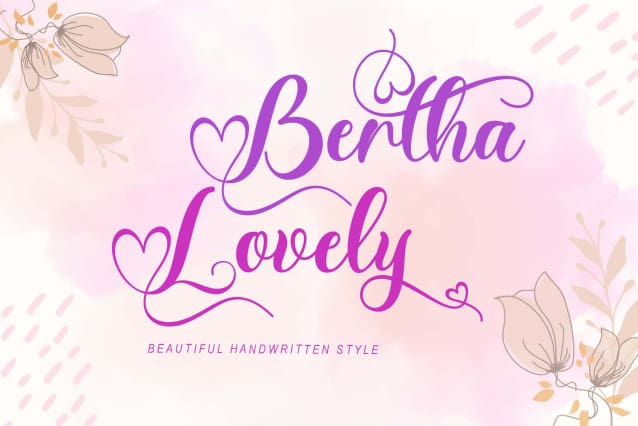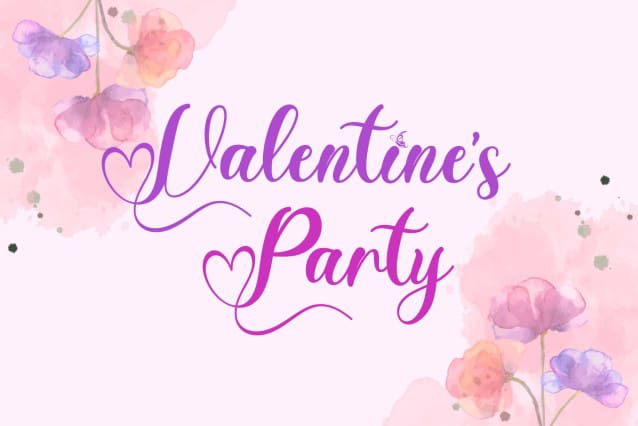
Bertha Lovely Font
Bertha Lovely Font is a beautiful handwritten font with love decoration. This font is equipped with uppercase, lowercase, numerals, punctuation, ligatures, swash, titling, lowercase alternates, and multilingual support. It is very suitable for weddings, engagements, photography, Valentine’s Day, Christmas, invitations, and others.